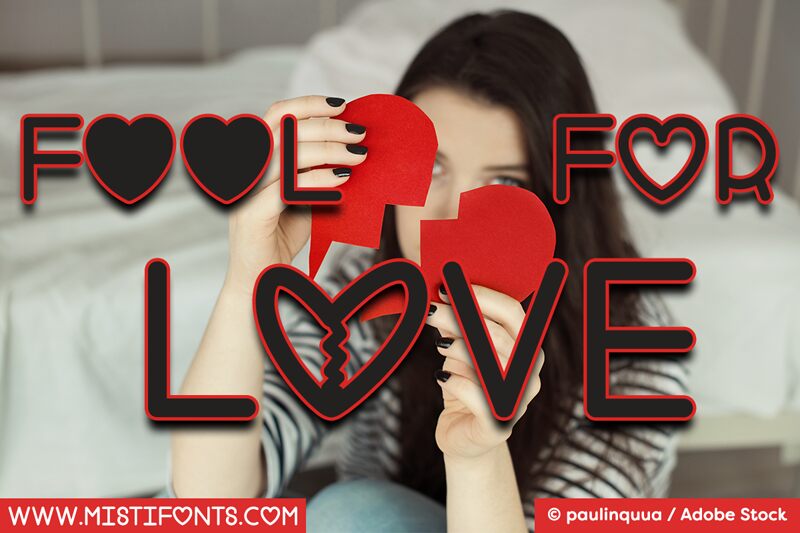
Fool for Love by Misti Hammers of Misti's Fonts is a free Valentine display font with tall, airy letters and smooth monoline strokes. Rounded forms alternate with sharp diagonals, and a heart-shaped character adds a clear romantic accent.
Boutique confectioners and wedding studios could use it for packaging, invitations, and event signage, where the light strokes avoid a formal or ornate look. The open forms keep the sweetness light. It also suits romance publishing centered on affection, courtship, or Valentine's Day.
The following symbols are available:
- Type * (asterisk) for the scribble heart.
- Type # (number sign or hashtag) for the solid heart.
- Type | (vertical bar) for the broken heart.
- Type _ (underscore) for the open heart.
- Type [] (brackets) for the small swirls.
- Type {} (curly braces) for the large swirls.